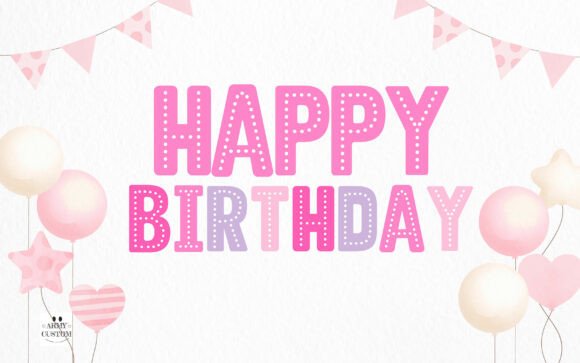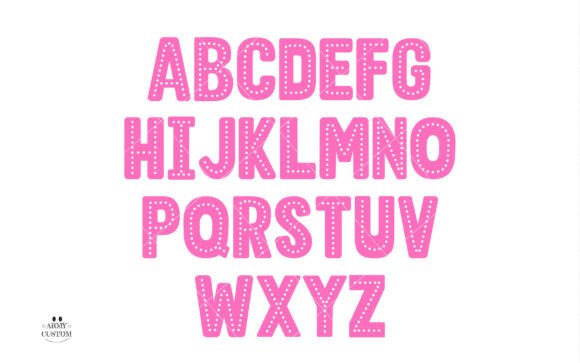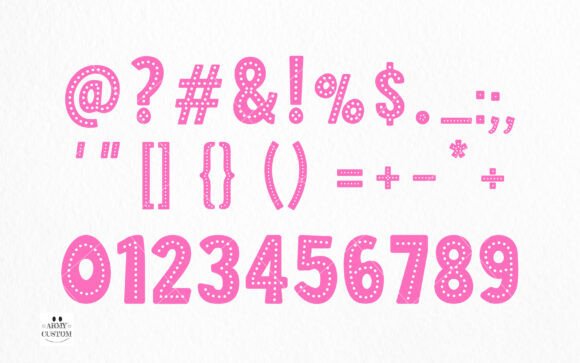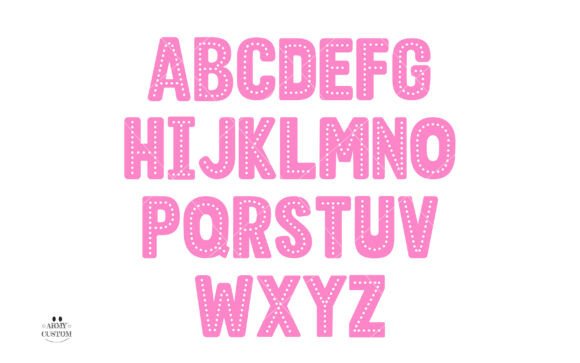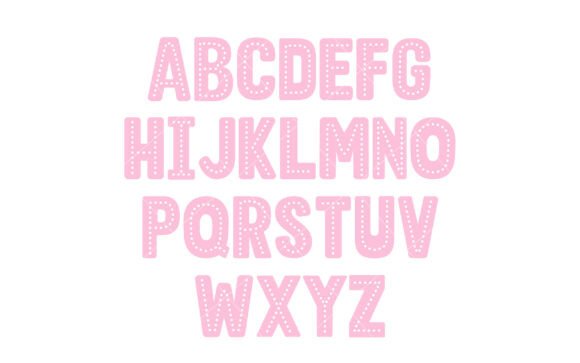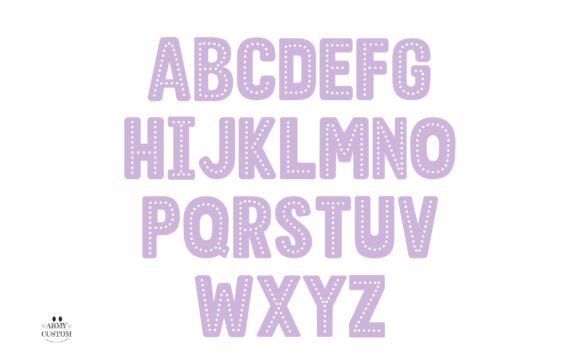
Introducing Birthday Girl Font: The Ultimate Choice for Playful Designs
Are you looking for a font that can add a touch of youthful charm to your designs? Look no further than the Birthday Girl Font! This delightful handwritten display font is perfect for projects that require a lively and playful aura. With its enchanting dotted nuances, Birthday Girl Font is sure to make your creations stand out from the crowd.
The Characteristics of Birthday Girl Font
Birthday Girl Font is a handwritten display font that exudes a sense of fun and ebullience. Its youthful charm is perfect for designs that aim to capture a joyful ambiance. The font features:
- Handwritten style: Birthday Girl Font has a beautiful, handwritten style that gives it a personal and unique touch.
- Dotted nuances: The font is embellished with enchanting dotted nuances that add a playful and lively touch to your designs.
- Youthful charm: The font’s youthful charm makes it perfect for projects that require a fun and energetic vibe.
Why Choose Birthday Girl Font?
There are many reasons why designers and crafters choose Birthday Girl Font for their projects. Here are a few:
- Perfect for party designs: Birthday Girl Font is perfect for designing party invitations, birthday cards, and other celebration-themed projects.
- Great for kids’ projects: The font’s playful and youthful charm makes it an excellent choice for kids’ projects, such as children’s book illustrations, nursery rhymes, and kids’ party themes.
- Versatile: Birthday Girl Font can be used for a wide range of projects, from digital designs to print materials, such as posters, flyers, and brochures.
- Easy to read: Despite its playful style, Birthday Girl Font is easy to read, making it perfect for designs that require a clear and legible font.
How to Use Birthday Girl Font
Using Birthday Girl Font is easy! Here are a few tips to get you started:
- Pair it with other fonts: Birthday Girl Font pairs well with other fonts, such as sans-serif fonts, to create a unique and interesting design.
- Experiment with colors: The font’s playful style looks great with bright and bold colors, so don’t be afraid to experiment and find the perfect color scheme for your design.
- Use it for headings: Birthday Girl Font is perfect for headings and titles, so use it to add a touch of personality to your design.
Here are a few tips for designers and crafters who want to get the most out of Birthday Girl Font:
- Keep it simple: Don’t overcomplicate your design. Birthday Girl Font is perfect for simple, yet effective designs.
- Be creative: Don’t be afraid to experiment and try new things. Birthday Girl Font is a versatile font that can be used in many different ways.
- Use it consistently: Use Birthday Girl Font consistently throughout your design to create a cohesive and professional look.
In conclusion, Birthday Girl Font is a delightful handwritten display font that is perfect for designers and crafters who want to add a touch of youthful charm to their designs. With its enchanting dotted nuances and playful style, Birthday Girl Font is sure to make your creations stand out from the crowd. Whether you’re designing party invitations, kids’ projects, or simply want to add a touch of personality to your design, Birthday Girl Font is the perfect choice.